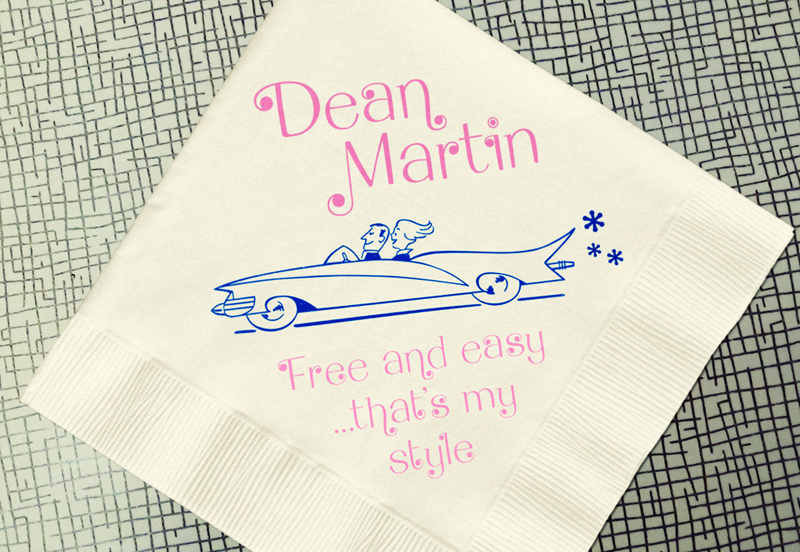
Dean Martin Swing is a free curly display font with tall theatrical letters and a lively mix of hairline strokes and broad rounded shapes. Oversized dots, compact loops, small circular accents, and sweeping hooks recur throughout the design. Its noticeably uneven proportions keep the line playful, jaunty, and slightly eccentric.
On packaging, its loops suit sweets and novelty-drink labels. Event posters and album covers can turn the looping details into borders or illustrated flourishes, a role that also suits invitations.
This font was traced from an old typeface. I added the missing swash characters and punctuation. Alternate both versions.
This font is traced from an old typefacebook. I added the missing swashy characters and punctuations.